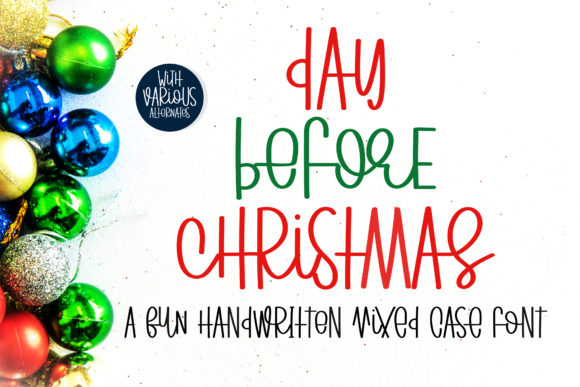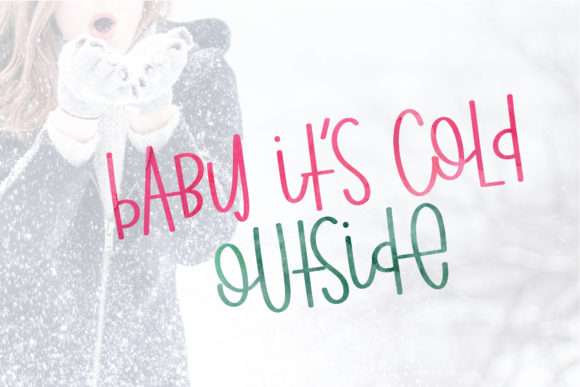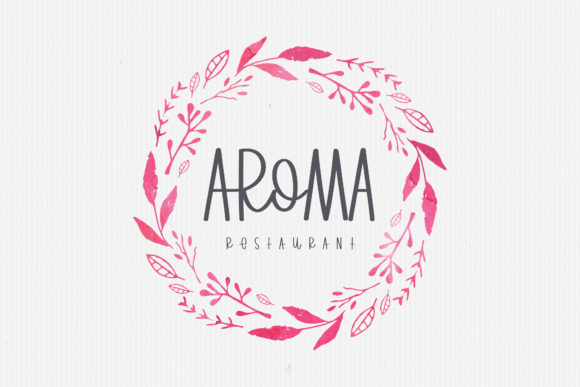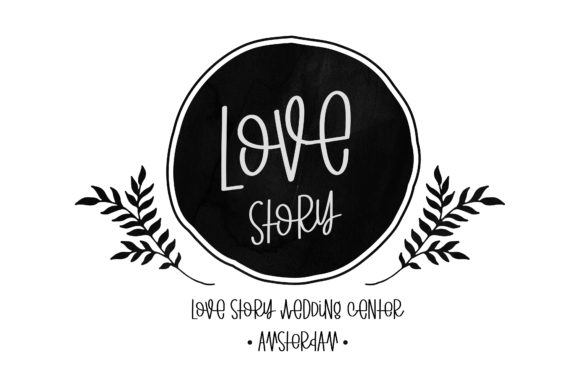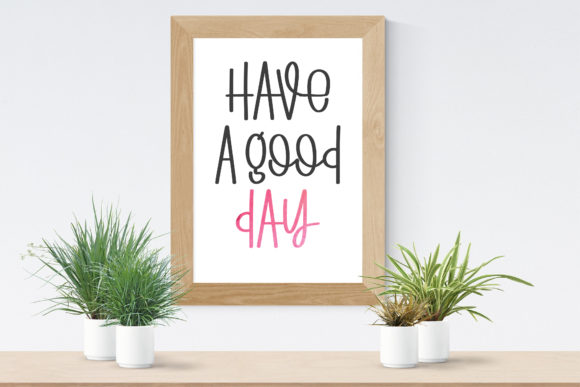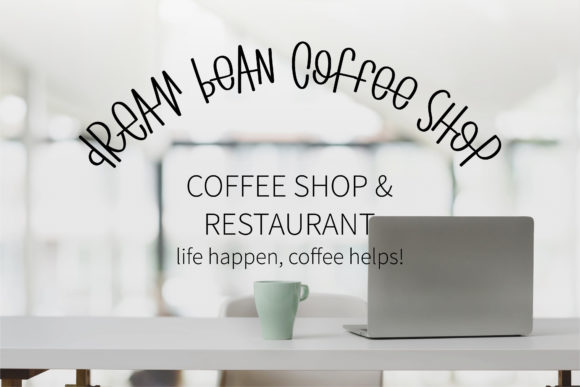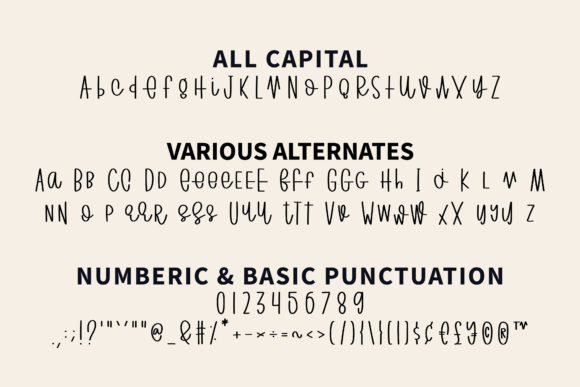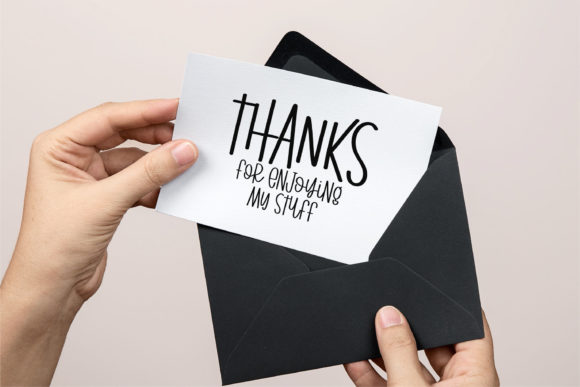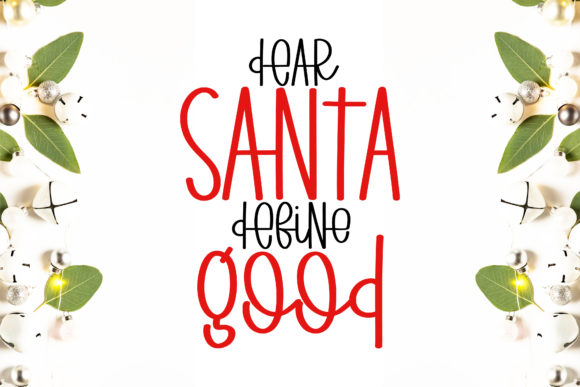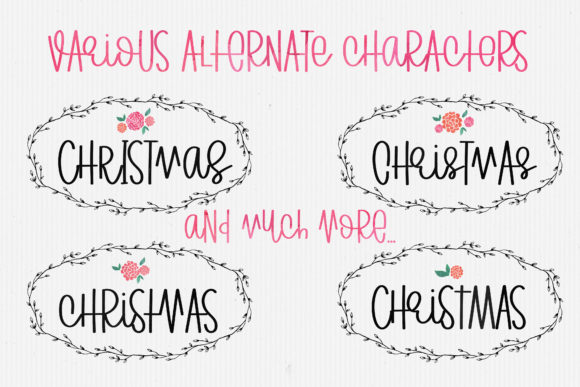
Day Before Christmas Font
About Day Before Christmas Font
Day Before Christmas is a delightful and charming handwritten font that adds a touch of sweetness and quirkiness to any design. Its friendly and versatile style makes it the perfect choice for various creative projects. Here are some ideas on how to make the most of Day Before Christmas:
1. Christmas Cards: Design adorable and heartwarming Christmas cards using Day Before Christmas, spreading joy and cheer to your loved ones.
2. Holiday Invitations: Create festive and playful holiday party invitations with Day Before Christmas, setting the mood for a fun and joyful celebration.
3. Quotes and Typography Art: Use Day Before Christmas to design cute and whimsical typography art featuring inspirational quotes and holiday messages.
4. Social Media Graphics: Make your social media posts stand out with Day Before Christmas, adding a touch of charm and personality to your content.
5. Gift Tags: Design cute and personalized gift tags using Day Before Christmas, making your presents even more special and endearing.
6. Festive Flyers: Create eye-catching flyers for holiday events and sales with Day Before Christmas, attracting attention with its playful charm.
7. Children’s Books: Use Day Before Christmas in children’s book illustrations and cover designs, bringing a sense of magic and wonder to the stories.
8. DIY Crafts: Apply Day Before Christmas to various DIY craft projects, such as handmade ornaments, decorations, and gift wrapping.
9. Seasonal Menus: Design festive menus for holiday-themed parties and gatherings with Day Before Christmas, adding a joyful touch to the dining experience.
10. Personal Blog Headers: Use Day Before Christmas in blog headers and graphics to give your website a playful and inviting vibe.
11. Seasonal Apparel: Apply Day Before Christmas to create fun and quirky designs for holiday-themed apparel, such as T-shirts and sweaters.
12. Festive Banners: Design eye-catching banners for holiday sales and promotions with Day Before Christmas, attracting customers with its charming appeal.
13. Seasonal Merchandise: Use Day Before Christmas to create cute and festive merchandise, such as mugs, stickers, and phone cases.
14. Holiday Posters: Create cheerful and captivating posters for holiday events and festivities using Day Before Christmas.
15. Seasonal Packaging: Apply Day Before Christmas to packaging designs for holiday-themed products, adding a delightful touch to the overall presentation.
Day Before Christmas’ sweet and quirky style adds a sense of joy and playfulness to any project. Embrace its versatility and watch your creative ideas come to life with a touch of charm and delight!